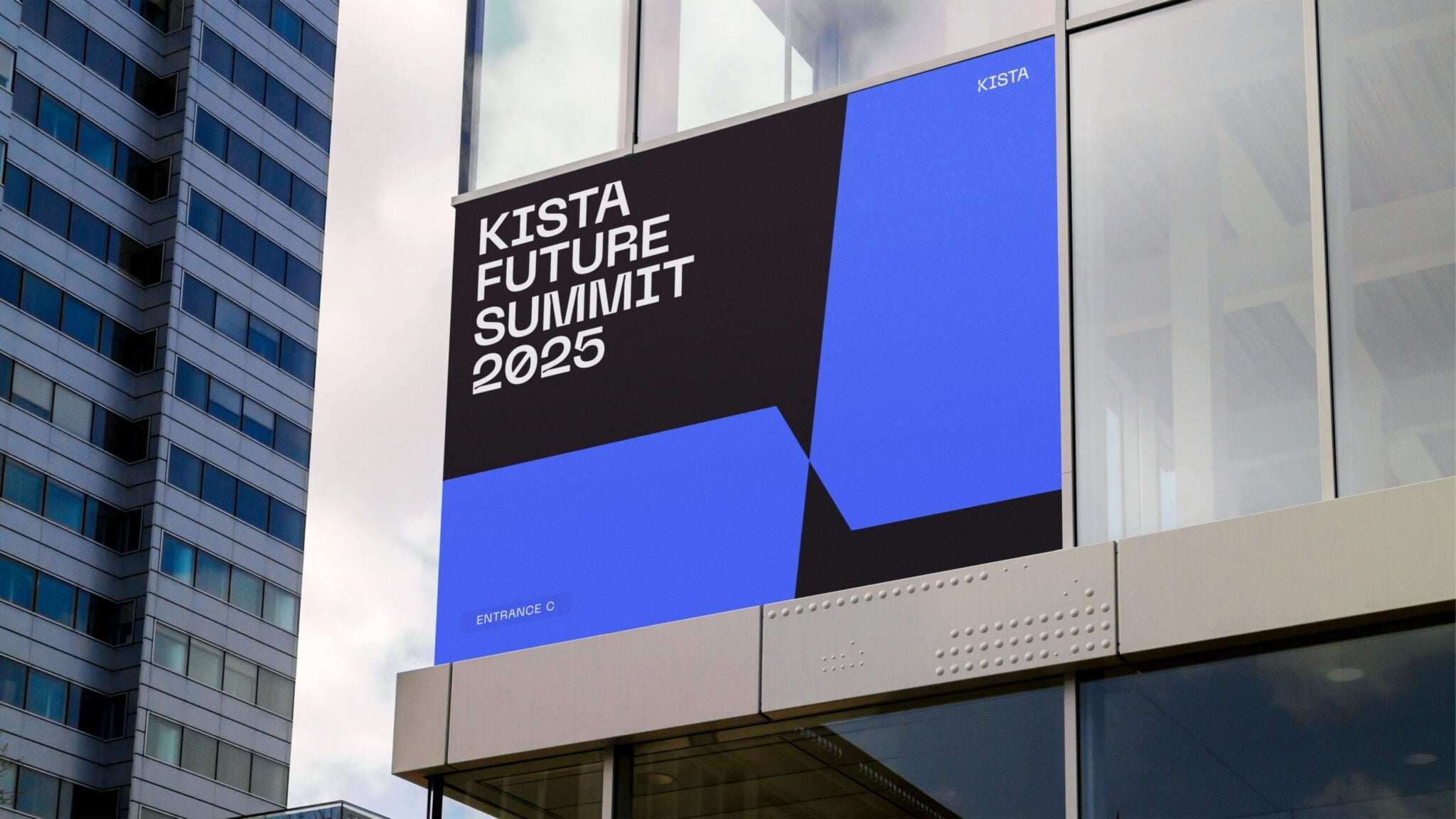
Today, it's evolving into a more diverse innovation district where research, entrepreneurship, culture and city life coexist.
Our task was to reposition Kista through a new brand strategy, visual identity, tone of voice and digital experience creating a brand that reflects not only where Kista comes from, but where it's headed.
The future is built where worlds meet
Technology was never Kista's greatest asset. People were. Researchers, entrepreneurs, engineers, students and global companies have been crossing paths here for decades, turning ideas into businesses and research into real-world impact. That insight became the foundation of the brand. Rather than focusing on technology itself, we focused on the thing that makes innovation possible: the meeting between people, disciplines and perspectives.
Always in motion
Kista has never stood still. For decades, the district has been shaped by constant change; new ideas, new companies, new technologies and new ways of thinking. That mindset defines the motion language. Geometric forms continuously open, close and transform, revealing new content as the identity moves through different applications. Typography follows the same principle, briefly passing through moments of experimentation before resolving into clarity.
One unifying language
The idea of crossing paths extends throughout the identity. Typography, logotype, iconography and graphic elements are all built from the same geometric language, creating a system where every part feels connected. Inspired by Kista's technical heritage but shaped for its next chapter, the identity balances precision with warmth. Confident enough to support groundbreaking ideas, approachable enough to welcome everyone contributing to the district's future.
A brand for everything Kista
Kista is no longer defined solely by what happens inside its offices, labs and testbeds. As the district grows into a place for work, life and everything in between, the identity grows with it. Adapting naturally to new initiatives, experiences and the communities that bring them to life.